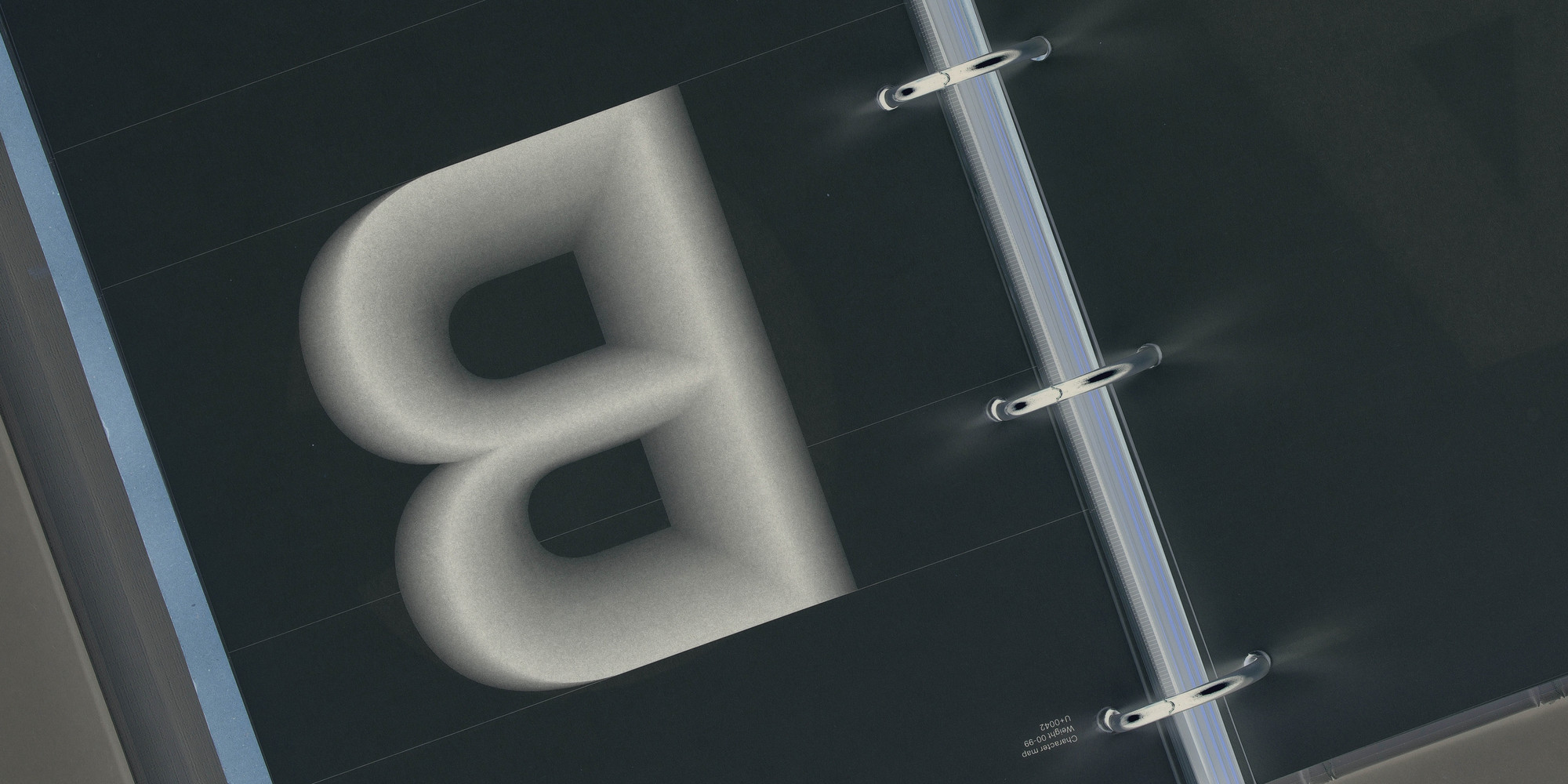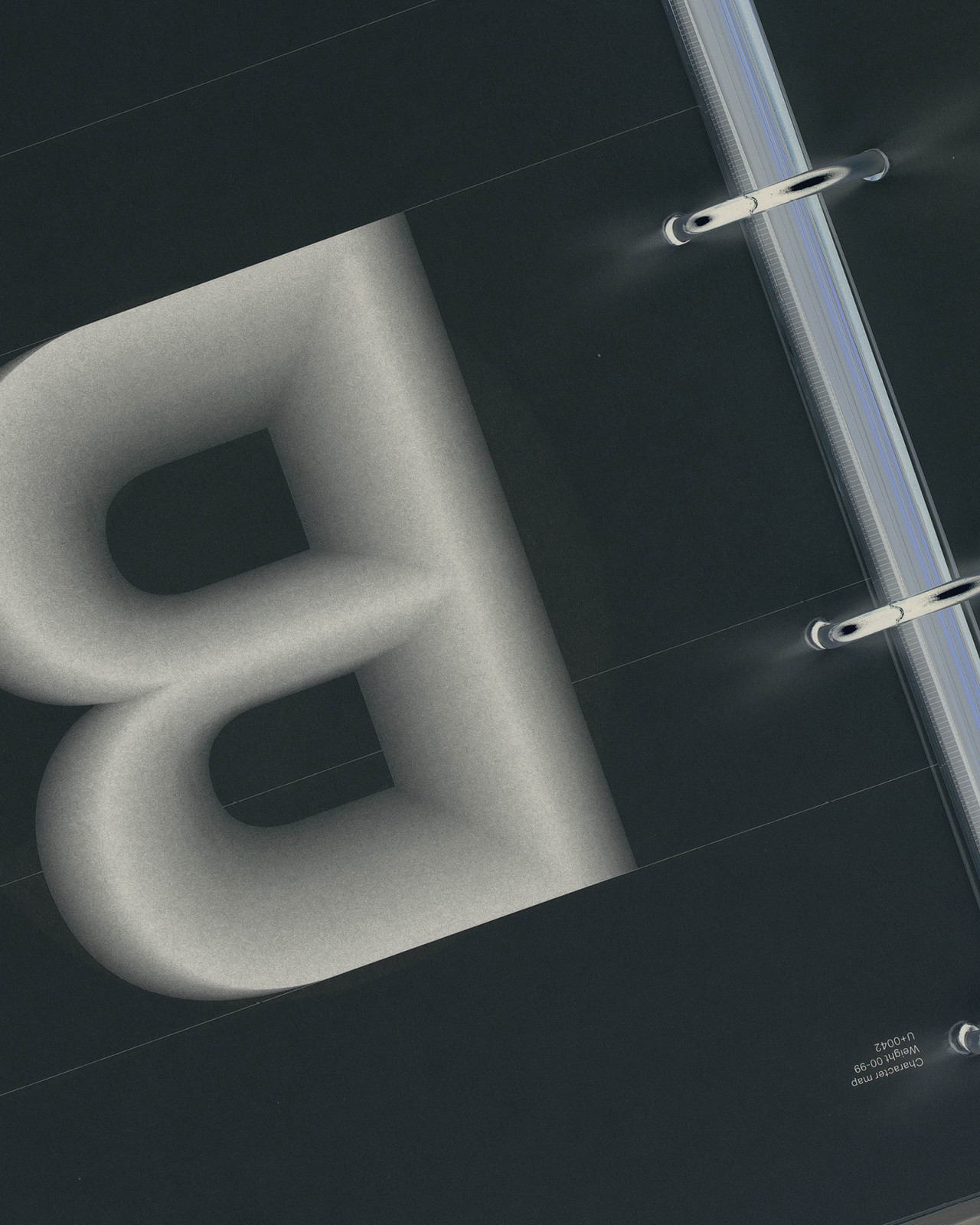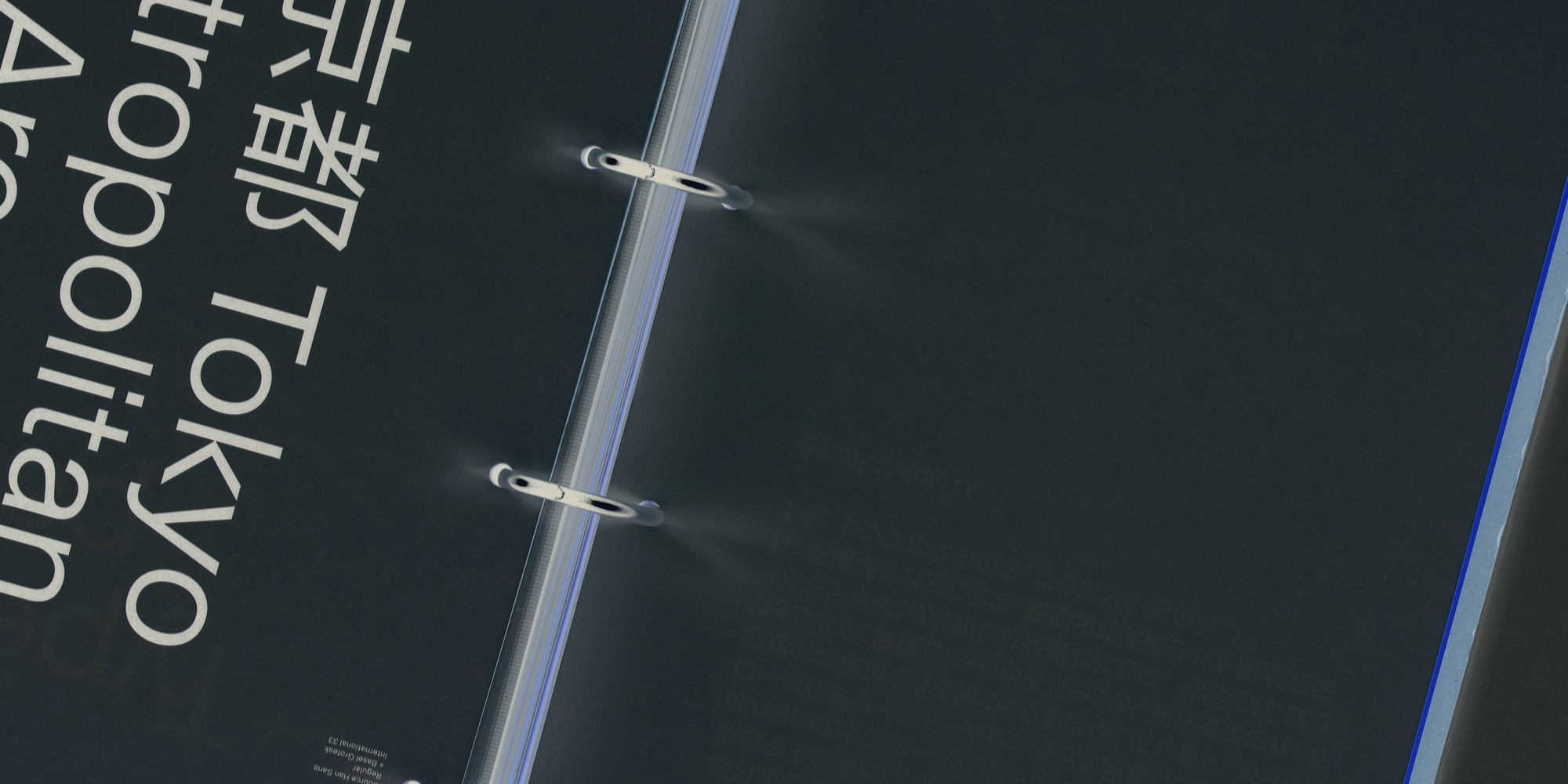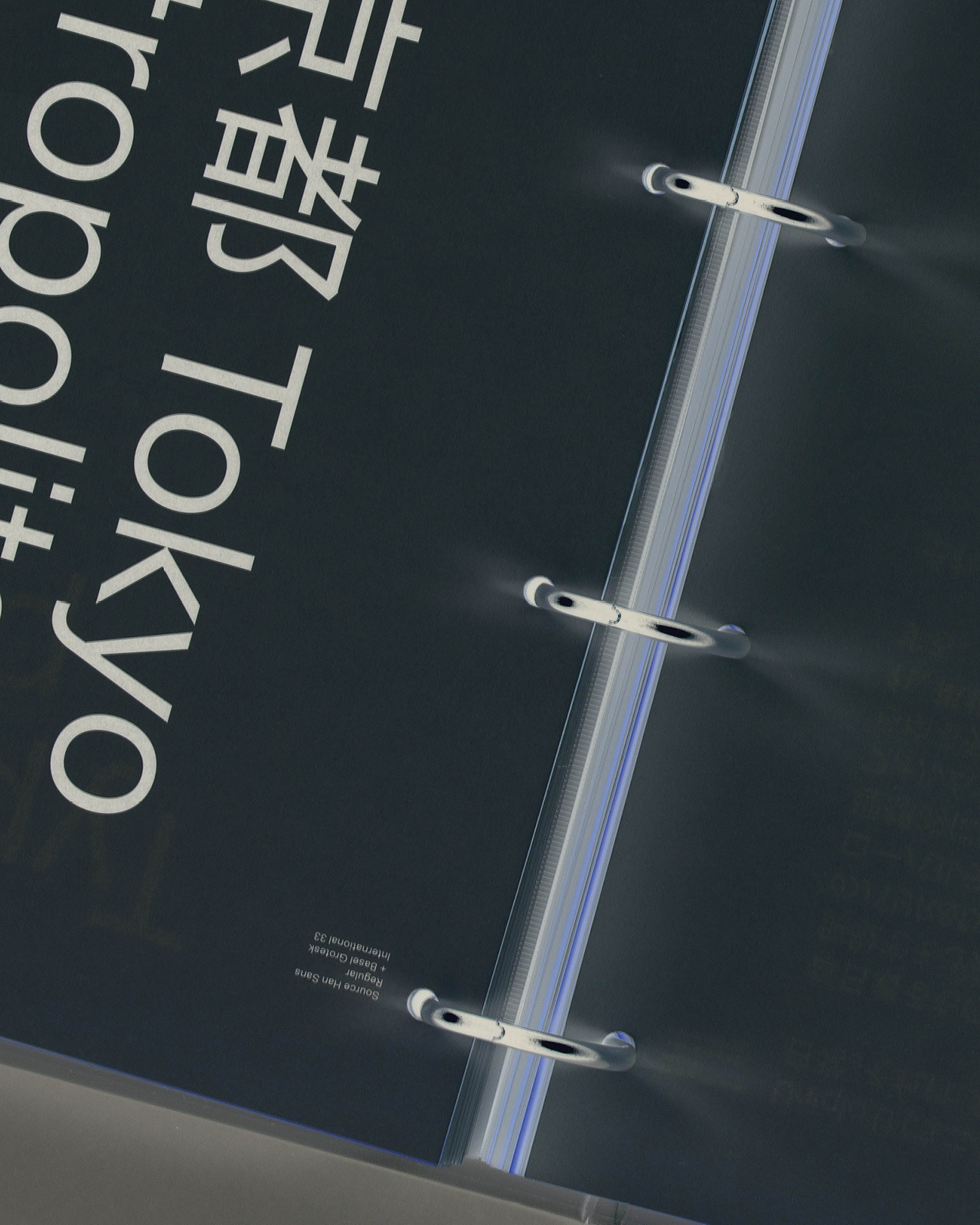
Basel Collection
OpenType Features
Case Sensitive Forms
All Caps [cpsp]
Case Sensitive Forms [case]
This function formats the text in uppercase and adjusts spacing between all capital letters. It also applies the ‘Case Sensitive Forms’ feature which replaces certain characters with alternates that are better suited for all capital text, especially related to punctuation.
Contextual Alternates
Contextual Alternates [calt]
This feature adapts the position of a glyph after its surrounding context. For instance, a dash placed between two uppercase letters or numbers will be replaced by an uppercase version of the dash, slightly higher. This feature is usually active by default in Adobe applications.
Alternate a
Stylistic Set 1 [ss01]
This feature replaces glyph(s) with stylistic alternate(s).
Alternate g
Stylistic Set 2 [ss02]
This feature replaces glyph(s) with stylistic alternate(s).
Alternate l
Stylistic Set 3 [ss03]
This feature replaces glyph(s) with stylistic alternate(s).
Alternate t
Stylistic Set 4 [ss04]
This feature replaces glyph(s) with stylistic alternate(s).
Alternate u
Stylistic Set 5 [ss05]
This feature replaces glyph(s) with stylistic alternate(s).
Alternate y
Stylistic Set 6 [ss06]
This feature replaces glyph(s) with stylistic alternate(s).
Alternate G
Stylistic Set 7 [ss07]
This feature replaces glyph(s) with stylistic alternate(s).
Alternate G
Stylistic Set 8 [ss08]
This feature replaces glyph(s) with stylistic alternate(s).
Alternate I
Stylistic Set 9 [ss09]
This feature replaces glyph(s) with stylistic alternate(s).
Alternate J
Stylistic Set 10 [ss10]
This feature replaces glyph(s) with stylistic alternate(s).
Alternate R
Stylistic Set 11 [ss11]
This feature replaces glyph(s) with stylistic alternate(s).
Rounded Dots
Stylistic Set 12 [ss12]
This feature replaces glyph(s) with stylistic alternate(s).
Each variant works perfectly individually or combined, and offers spirited and contemporary characters with a foundational versatility adapted to meet modern needs. Both worldly and refined, Basel was initiated in 2013 and grew from a string of usages in various fields, from publishing to fashion. From the steadiness of Basel Grotesk to the elegance of Basel Classic, the program offers an exhaustive tool completed by a wide range of alternate options conceived to fulfill any graphic designers’ requirements.